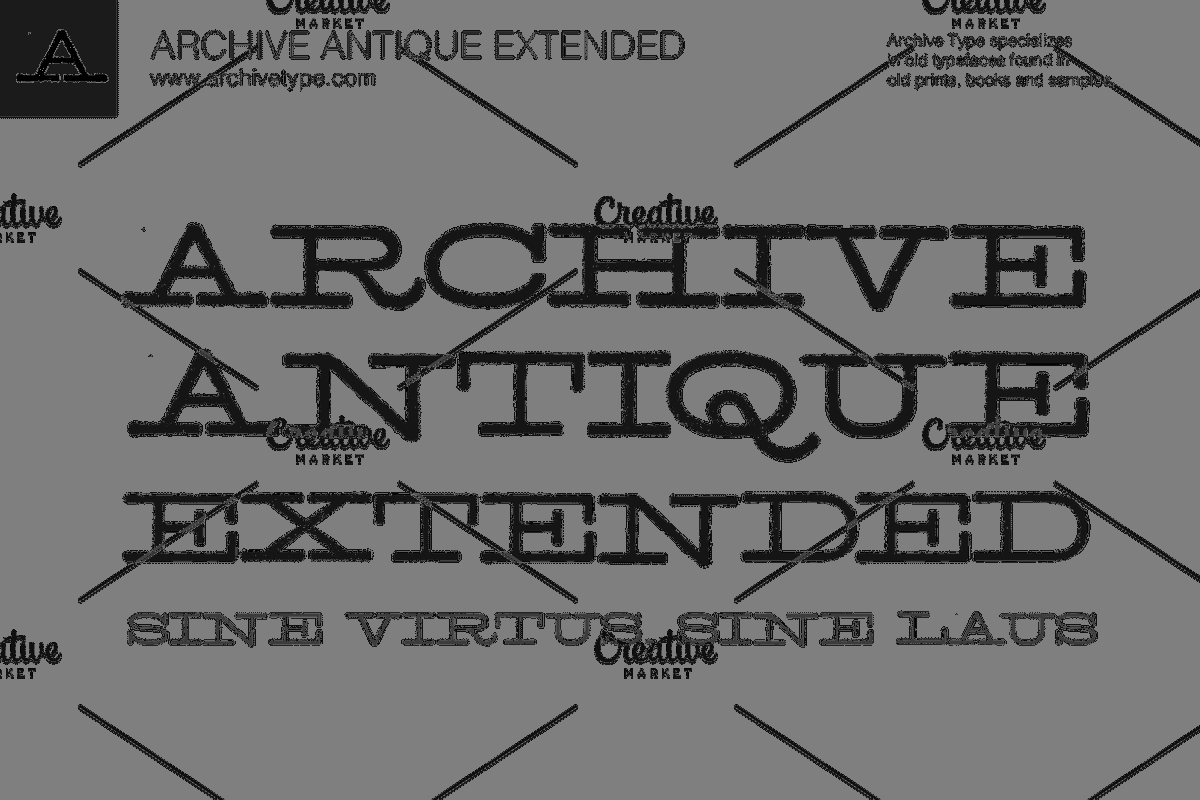
The Archive Antique Extended Font Free Download is a vintage-inspired typeface with a bold, extended style that blends classic charm with modern usability. Perfect for editorial design, logos, posters, signage, and nostalgic branding, this font brings a sense of history and sophistication to any project.
Its tall, wide letterforms and subtle serif detailing make Archive Antique ideal for impactful headlines and stylish retro layouts. The font includes uppercase and lowercase characters, numbers, punctuation, and multilingual support—offering versatility for both digital and print applications.